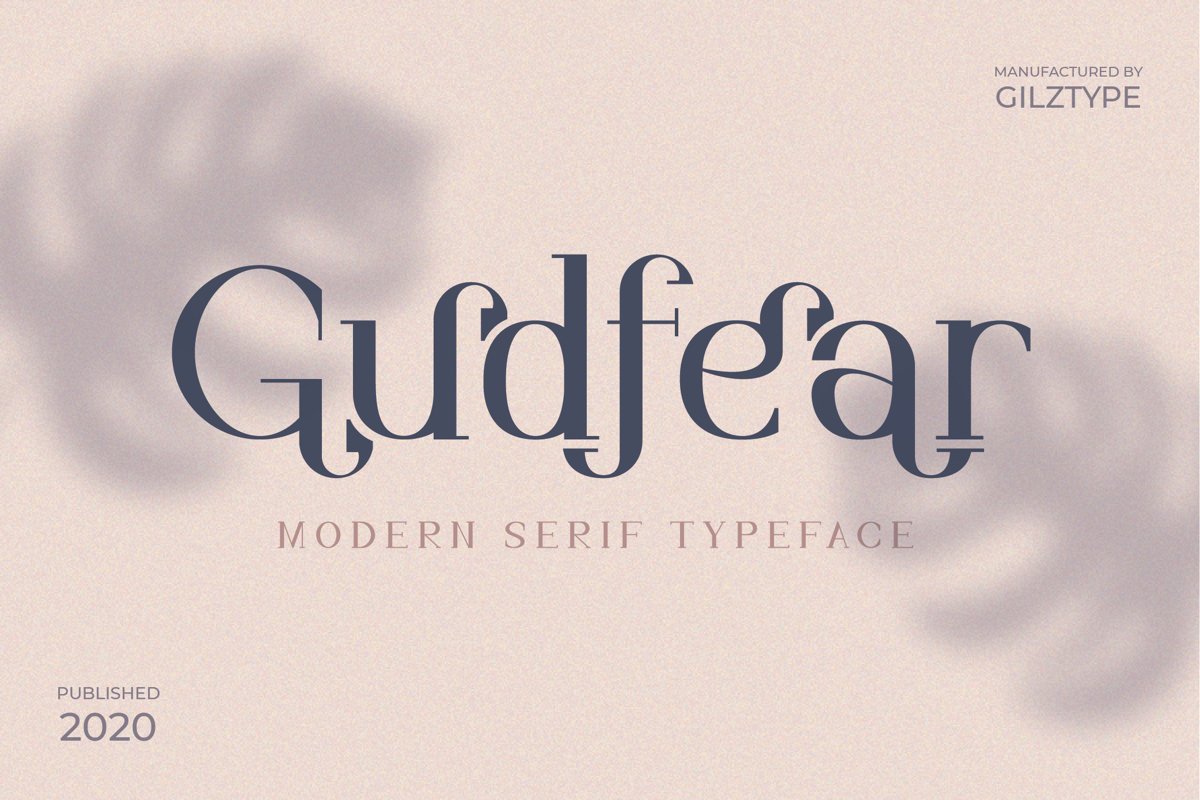
Gudfear - Modern Serif Font
Introducing Gudfear - Modern Serif Font
Gudfear is modern serif and classic style typeface. This font is perfect for for your creative project such as Logotype, Product Branding, Wedding Invitation, Packaging, Merchandise, Labels, and much more!
Gudfear comes with 2 style, standard character, numeral, punctuation and also alternates.